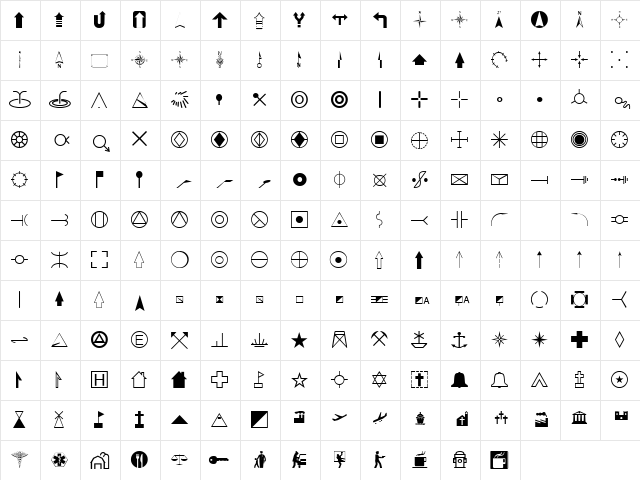
ESRI Cartography Regular
Design Context for ESRI Cartography Typeface
ESRI Cartography is a composed and adaptable typeface that performs quietly and consistently across a wide range of design contexts.